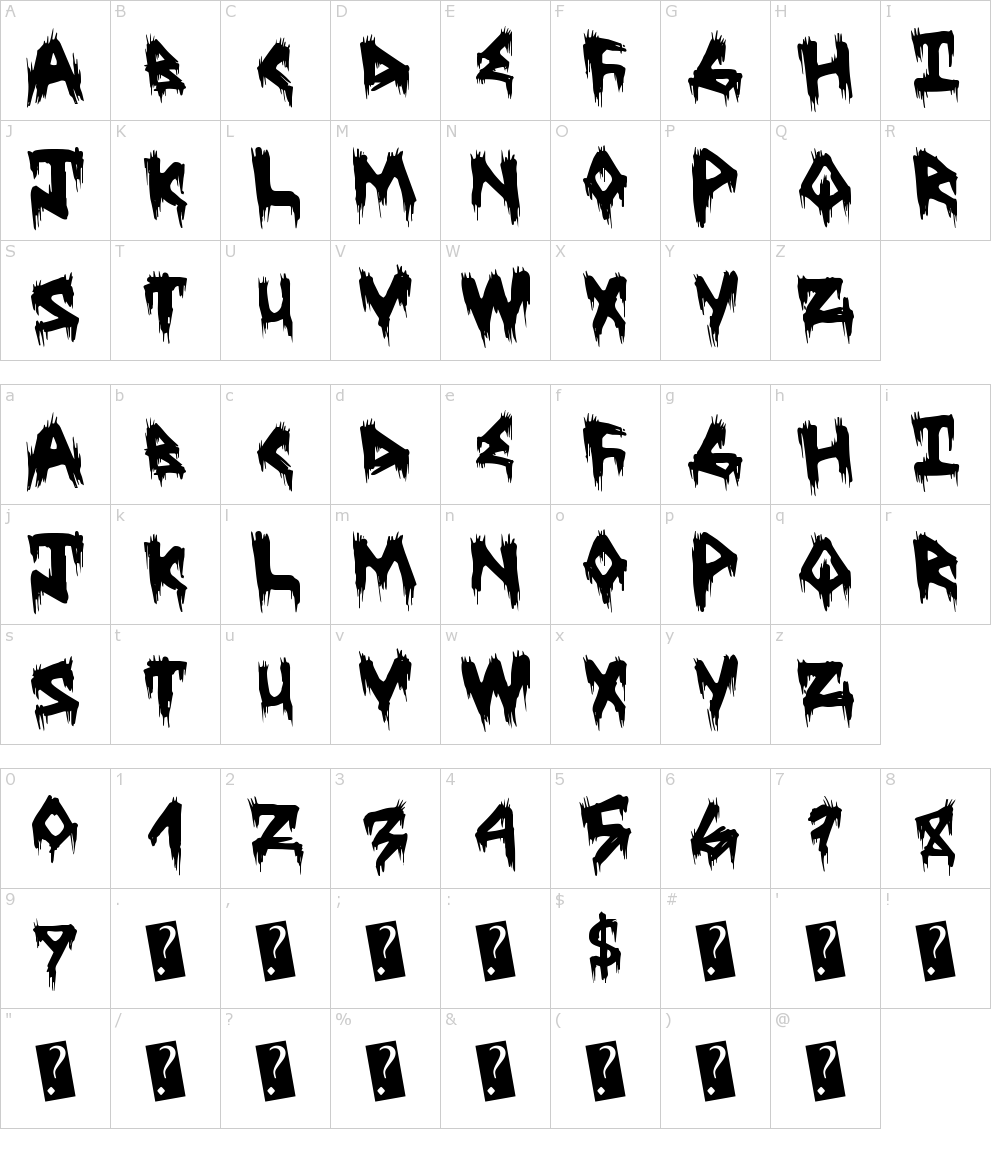
Horror Font Generator. Often more than not, we see such cursed text appear in different places across the web however when we wish to copy it and paste it elsewhere such as on. Zalgo text generator is the process of cripy text or stmboles combinations set in your text.
If you want to choose other horror effect, you just need to go back to the 3d horror text effect logo generators list. Convert your texts to cool and weird styles, with different alphabets, quickly and completely free. This is a plank that claims to talk to the deceased.
Browse by alphabetical listing, by style, by author or by popularity. Compatible with facebook, twitter, instagram and other networks. These creepy fonts are primarily a part of soda occult like the font used at the ouija board.
Zalgo text generator is the process of cripy text or stmboles combinations set in your text. Below there is an example concerning how this horror logo effect looks like. Click to find the best 998 free fonts in the horror style.